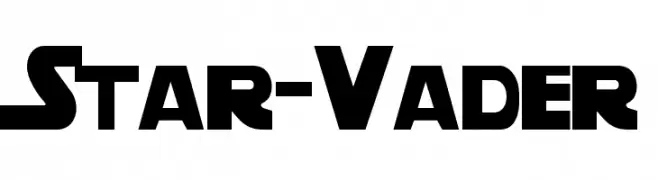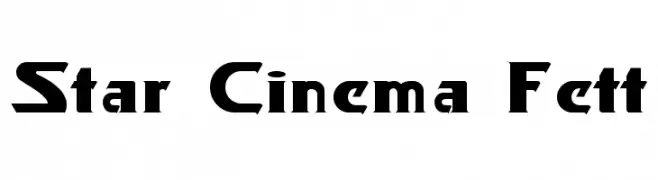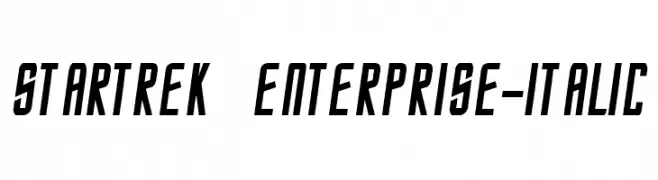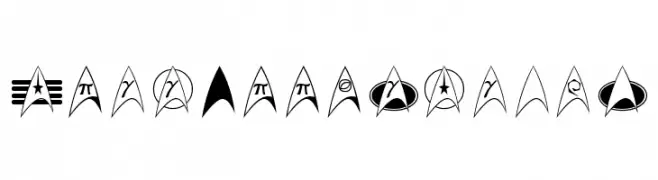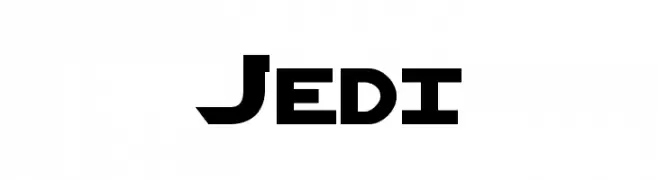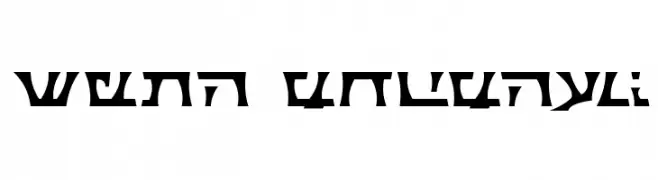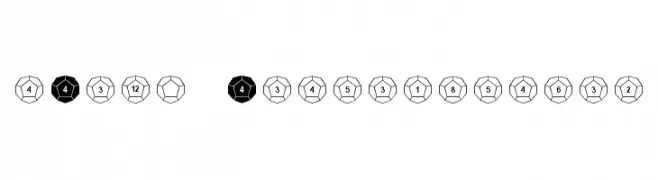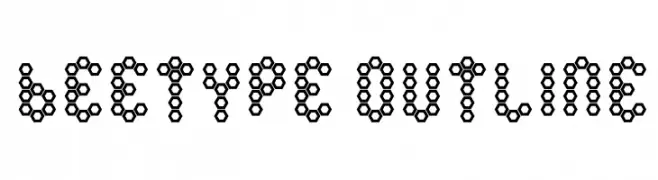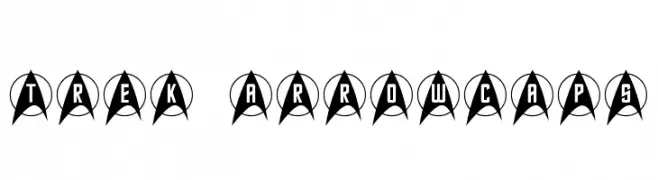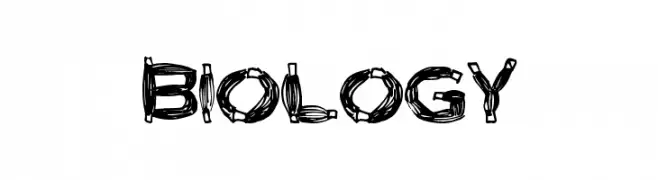
A bold, futuristic font with strong geometric shapes and sharp angles.
A bold, futuristic font with sharp angles and geometric shapes.
Abstract, circular, and decorative font with a sci-fi feel.
A bold, geometric font with a futuristic and angular design.
A futuristic, italicized font with angular and dynamic letterforms.
Monospaced numerals inside dodecahedron outlines, geometric and uniform.
A bold, futuristic font with geometric shapes and sharp angles.
Geometric, decorative typeface with dot accents and a sci-fi feel.
A whimsical decorative font with alien and spaceship-themed illustrations.
A collection of intricate and decorative abstract alien symbols.
A collection of sci-fi inspired arrowhead symbols for decorative use.
A bold, futuristic font with geometric letterforms and sharp angles.
A geometric, futuristic font with bold, angular lines and a modern aesthetic.
A bold, slanted font with a futuristic and dynamic style.
Numerals inside dodecahedron shapes with a clean, geometric sans-serif style.
A bold, geometric font with characters enclosed in arrowhead shapes, perfect for futuristic themes.
A bold, organic font with intricate, nature-inspired patterns.
A whimsical, space-themed decorative font with intricate celestial illustrations.
A sci-fi themed dingbat font with character icons and silhouettes.
A bold, futuristic font with sharp angles and geometric shapes.
A futuristic, angular font with a slanted, geometric design.
A bold, angular font with a futuristic and dynamic style.
A bold, condensed, and italicized font with a futuristic and angular design.
A bold, geometric font with a futuristic, sci-fi style.
A bold, italicized font with a futuristic and dynamic style.
A bold, geometric font with a futuristic and powerful design.
A bold, italicized font with a futuristic, angular design.